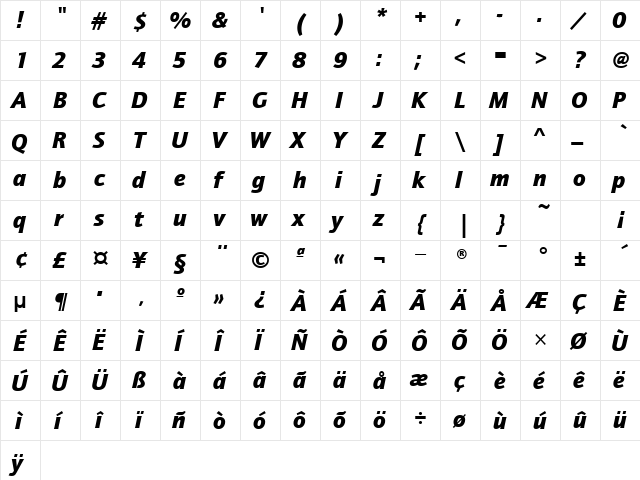
QuaySansITCTT BlackItalic Font Preview
QuaySansITCTT BlackItalic
QuaySansITCTT BlackItalic Font Details
| Style | BlackItalic |
| Foundry | International Typeface Corporation |
| Designer | David Quay |
Design Context for QuaySansITCTT Typeface
QuaySansITCTT takes a measured approach to typography — its balanced proportions and neutral character make it a reliable workhorse for both digital and print work. The dynamic lean of this cut emphasises speed and emphasis in any layout.